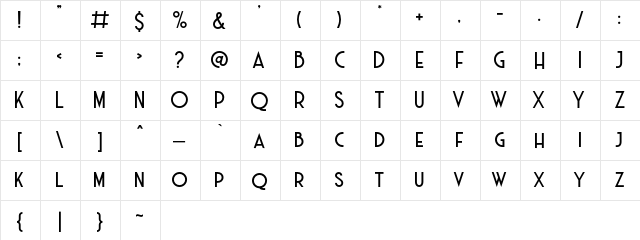
Haarlem Deco DEMO Regular
| Foundry | Twicolabs Fontdation |
| Designer | Twicolabs Fontdation |
Design Context for Haarlem Deco DEMO Typeface
Haarlem Deco DEMO is a composed and adaptable typeface that performs quietly and consistently across a wide range of design contexts.